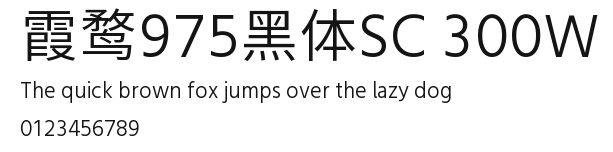
霞鹜975黑体SC 300W Preview
• Font Name: 霞鹜975黑体SC 300W
• Full Font Name: 霞鹜975黑体SC 300W
About 霞鹜975黑体SC 300W.ttf
霞鹜975黑体SC 300W.ttf is a modern, elegant sans-serif font designed for ultimate readability and visual harmony. Perfect for branding, headlines, web design, and print materials.